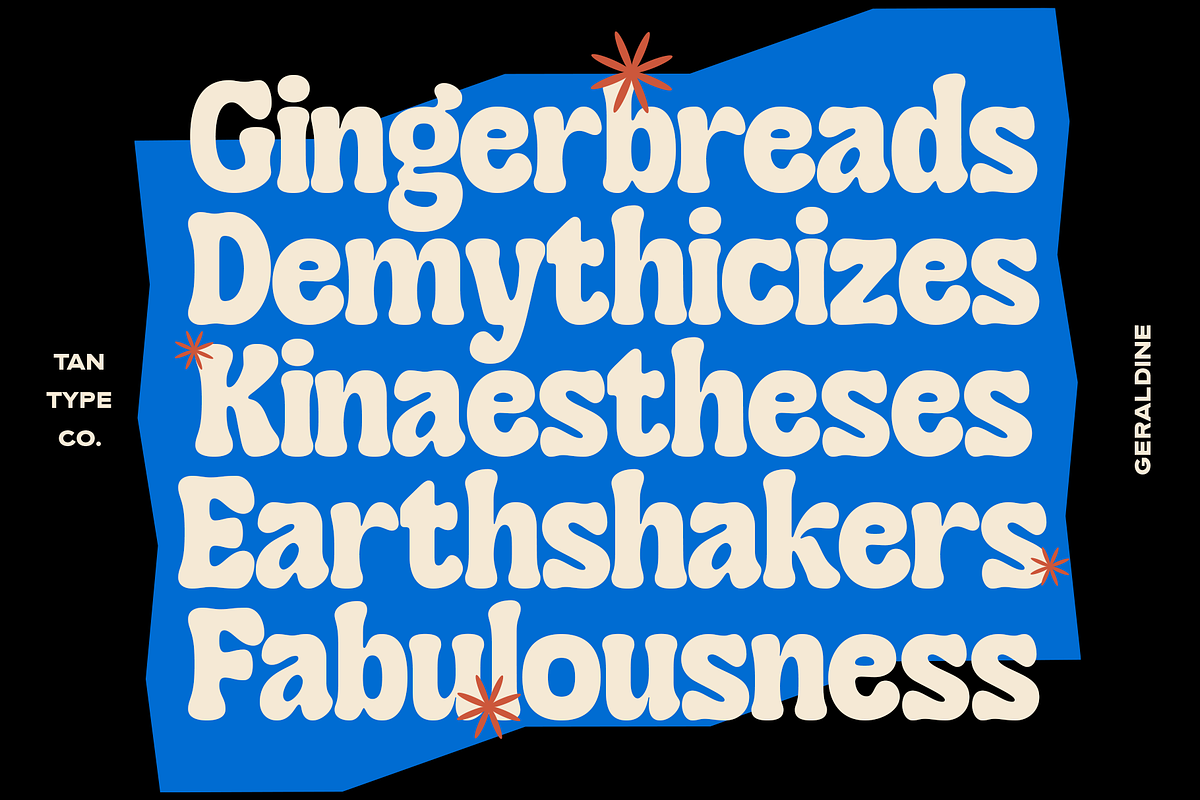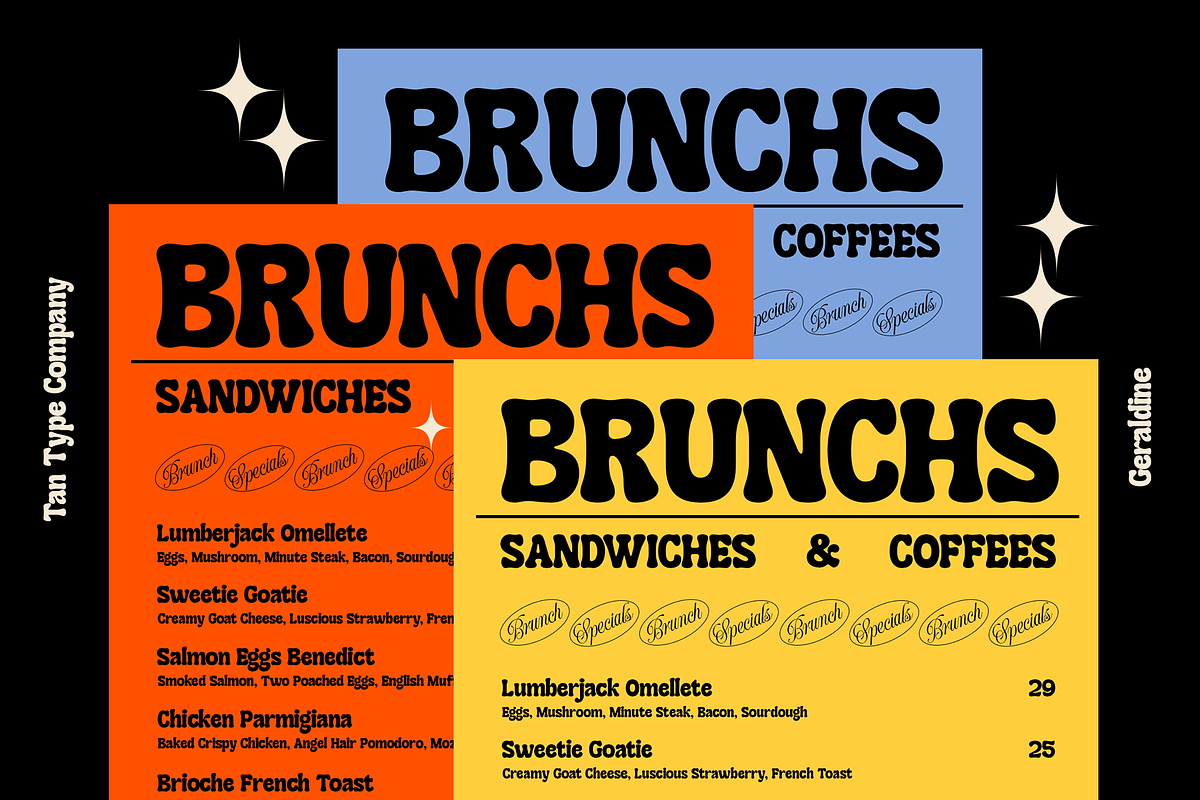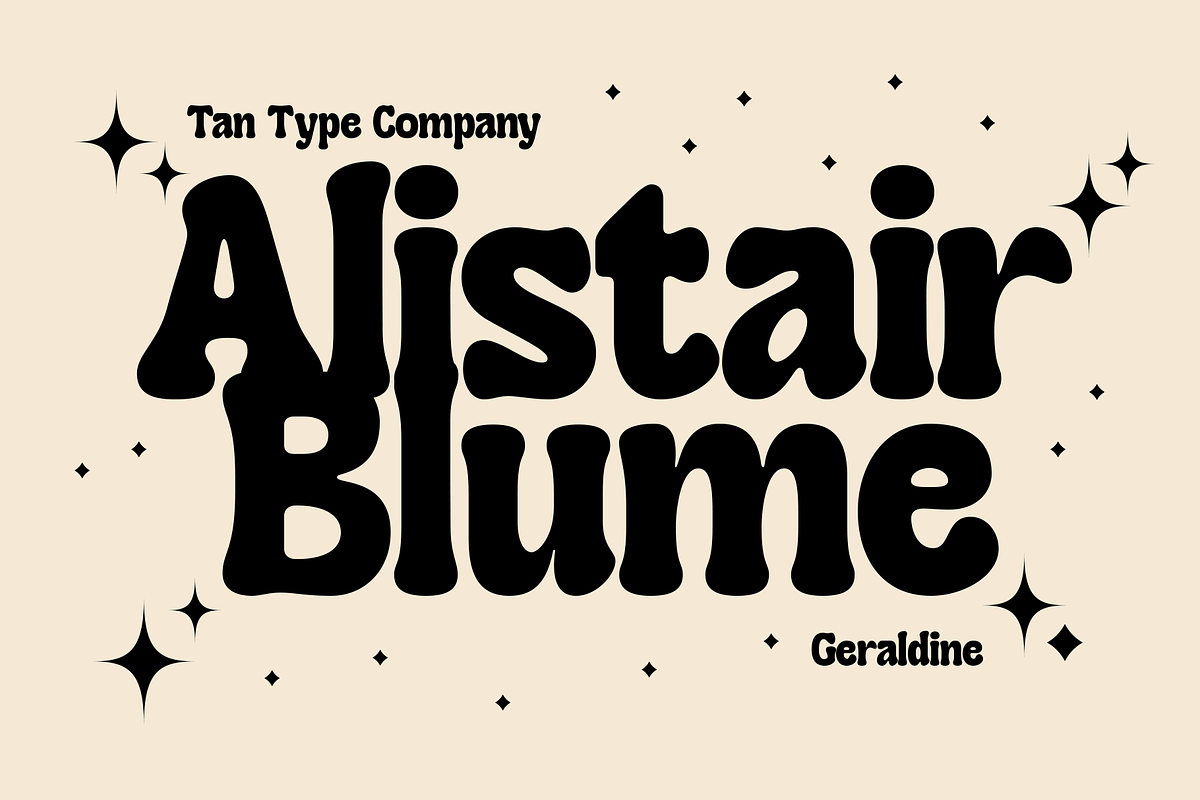
TAN - GERALDINE Font
TAN GERALDINE Font
TAN GERALDINE is a captivating bold soft serif font that effortlessly blends elegance with playful charm. With its retro-inspired design, this typeface brings a timeless, vintage vibe to any project while remaining fresh and approachable.
The smooth, rounded serifs create a sense of warmth and friendliness, making it versatile enough to adapt to both sophisticated and fun applications. Whether you’re designing for luxury brands, casual events, or retro-themed graphics, TAN-GERALDINE delivers a perfect balance of style and personality. Its flexibility and unique character make it ideal for everything from high-end fashion to quirky marketing campaigns, offering both elegance and a touch of whimsy.